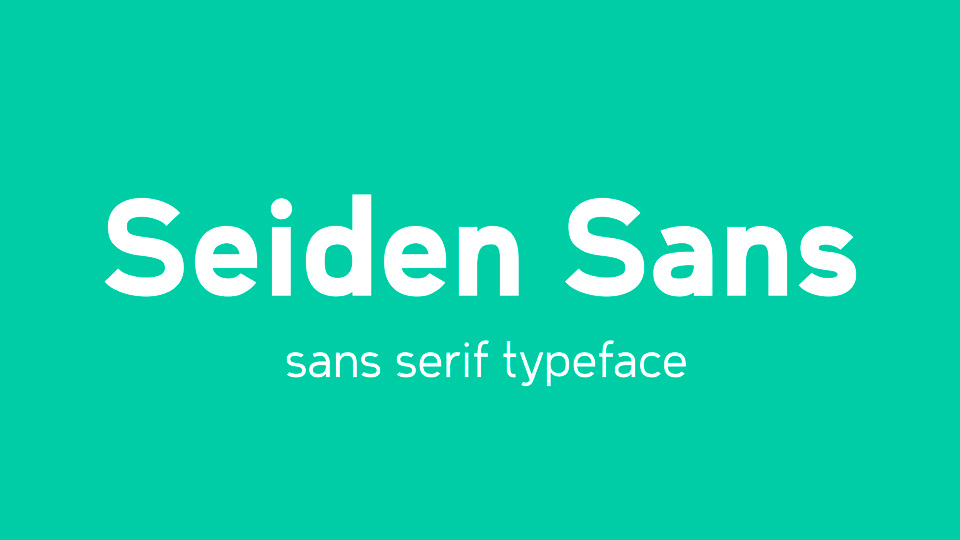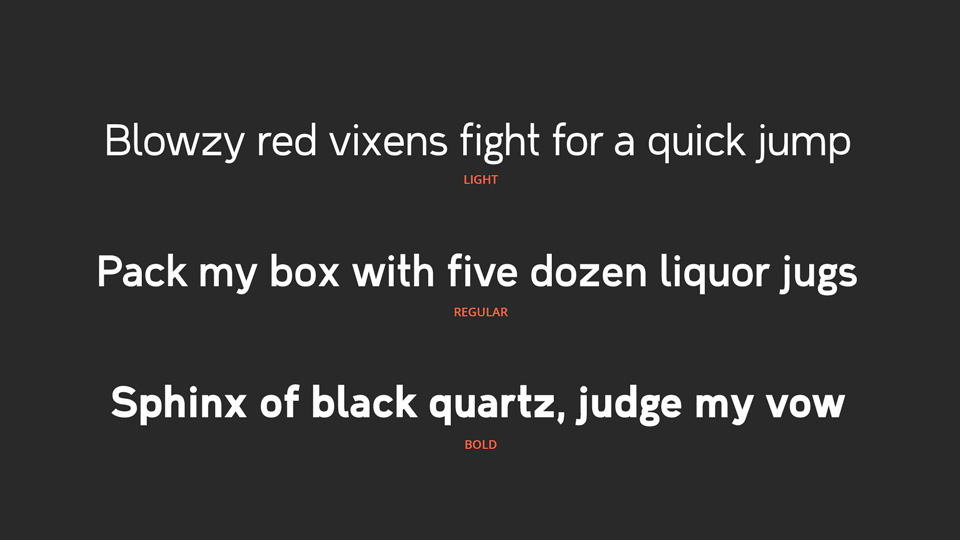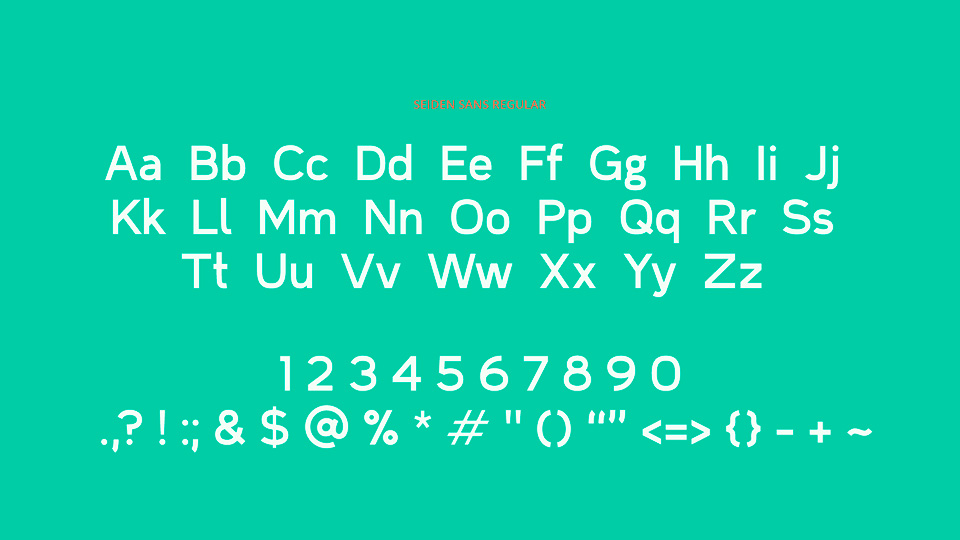
Seiden Sans is a sans serif typeface, inspired by both neo-grotesque and geometric typefaces. Seiden Sans was created in an attempt to combine the two aesthetics without compromising legibility.
The typeface comes in Light, Regular and Bold weights and contains a standard set of glyphs.